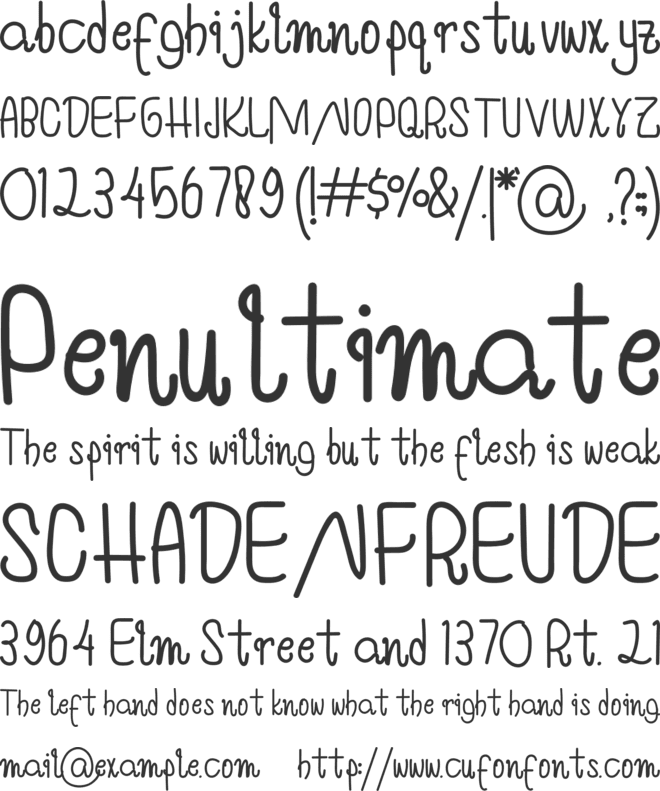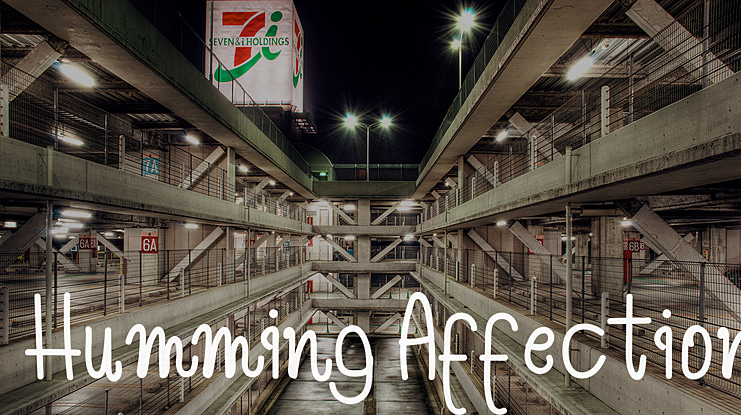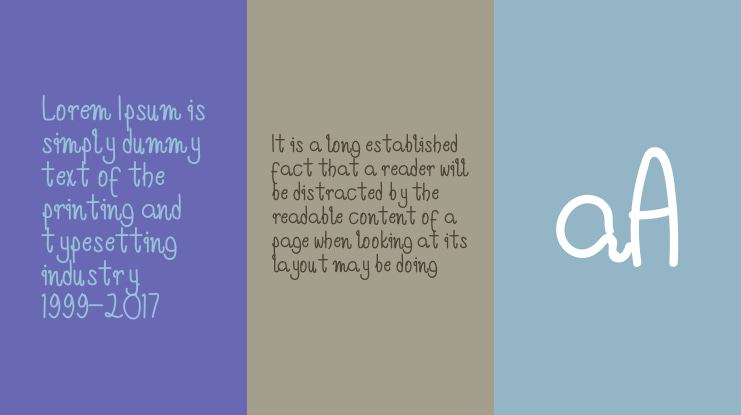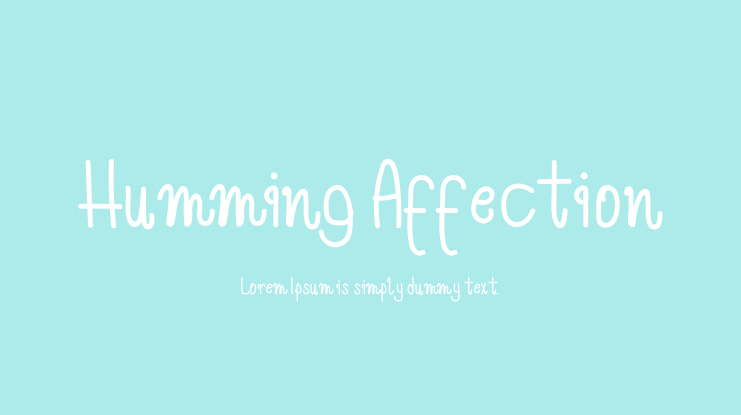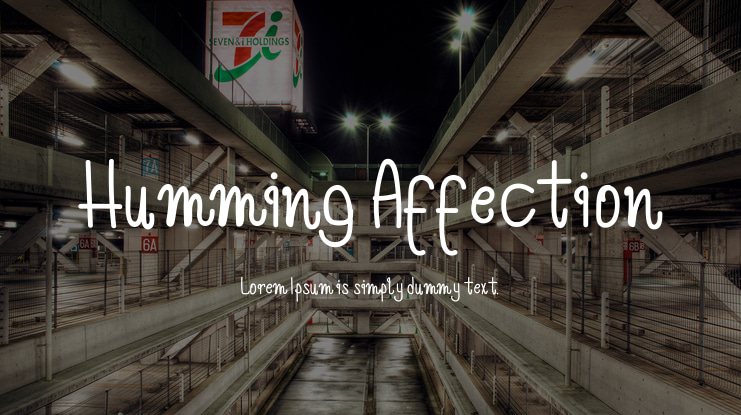
Humming Affection Font
Humming affection is handwritten font that represents cheerful, happiness, joy, and funny.
This font is suitable for various projects, such as design, logo, quotes, social media posts, and many others.